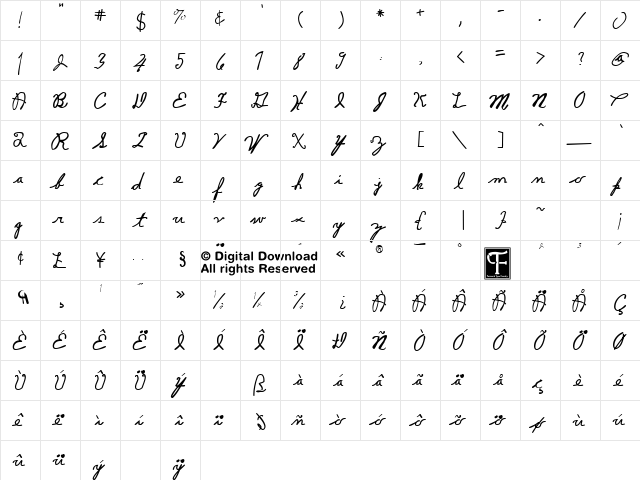
Dillinger Concise
Design Context for Dillinger Typeface
Dillinger is a composed and adaptable typeface that performs quietly and consistently across a wide range of design contexts.